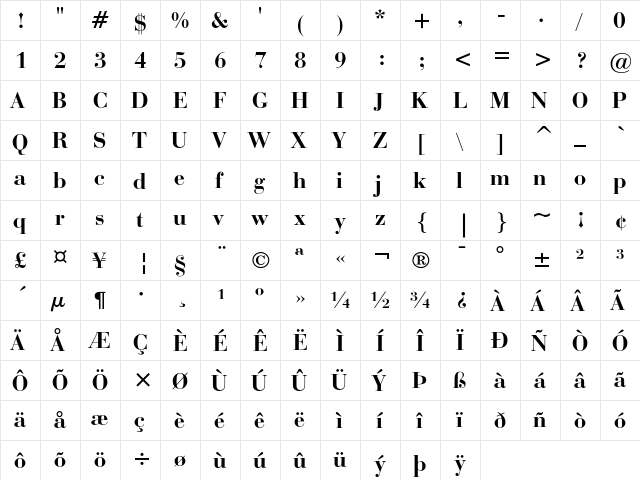
Bauer Bodoni Bold Font Preview
Bauer Bodoni Bold
Bauer Bodoni Bold Font Details
Design Context for Bauer Bodoni Typeface
Bauer Bodoni is a composed and adaptable typeface that performs quietly and consistently across a wide range of design contexts. Its bold stroke weight gives it real presence on the page.